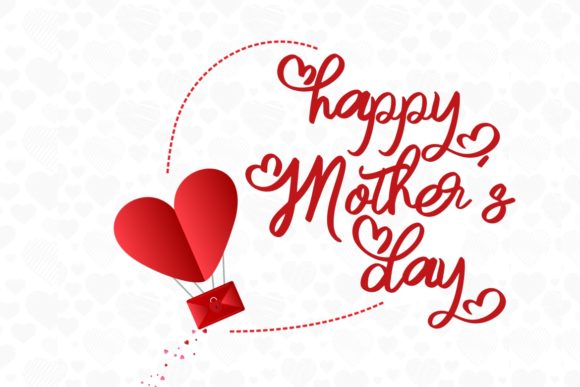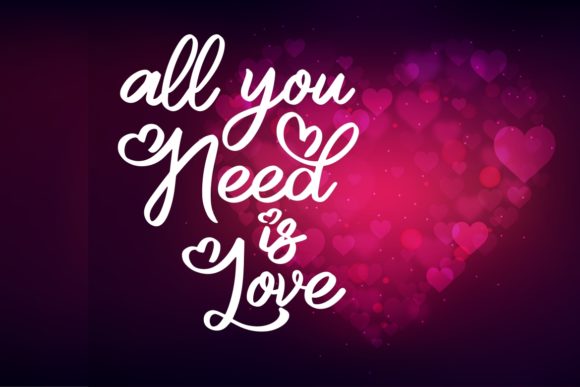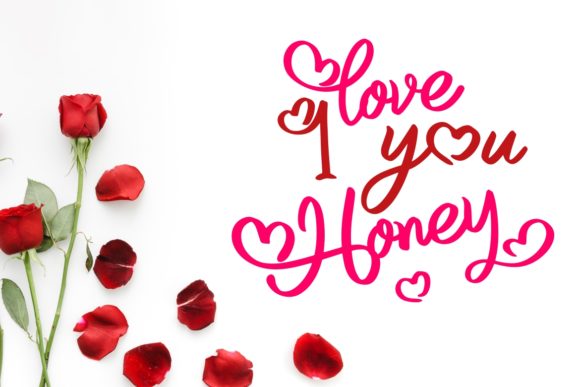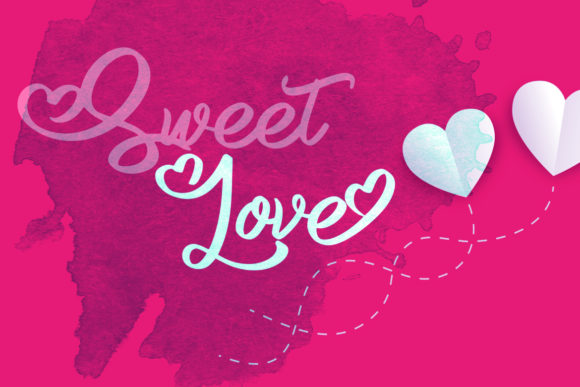
Angelove Font
About Angelove Font
Angelove is a fun and clean script font made with the intention of being used for gift products or greeting cards! You will most certainly fall in love with this one!